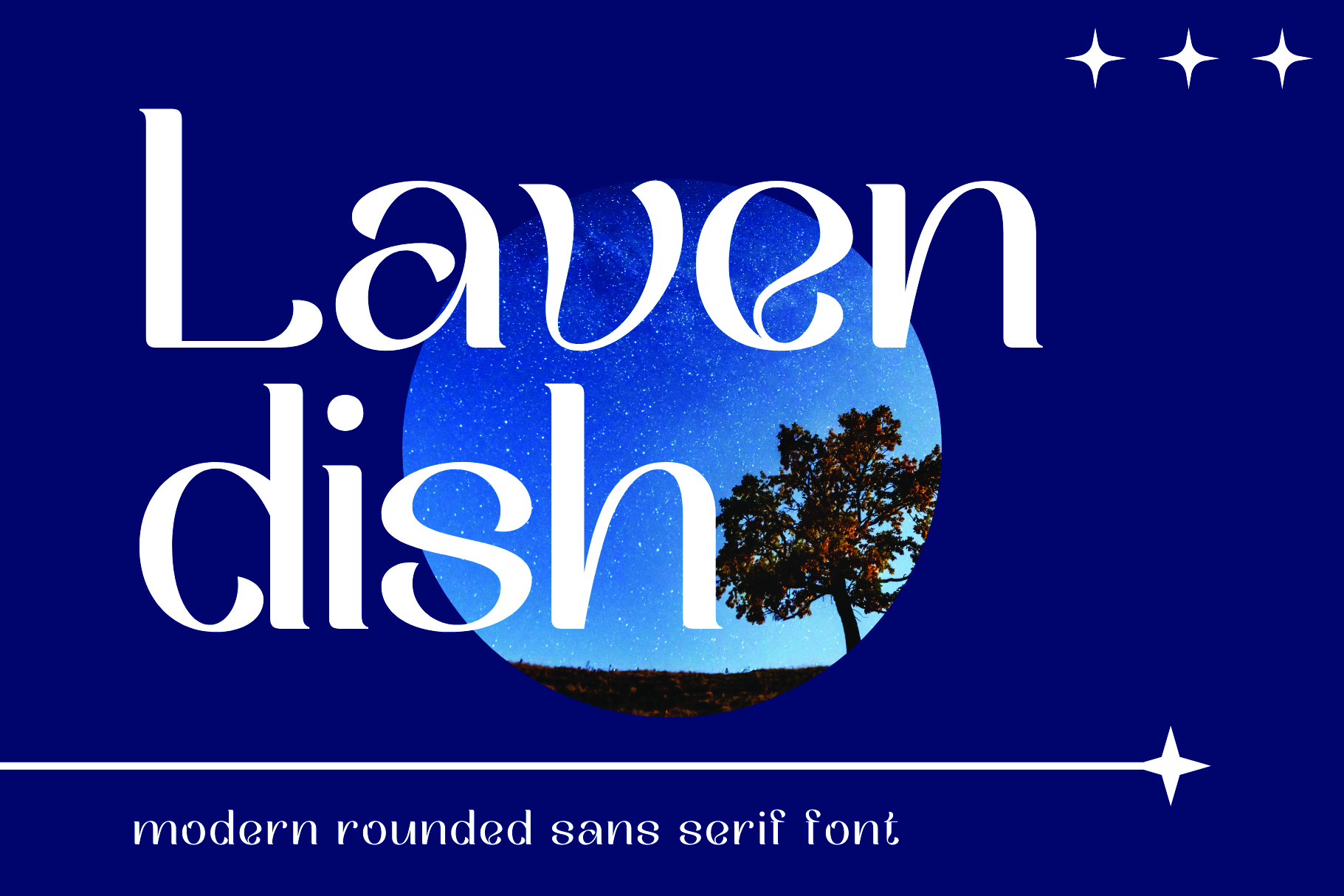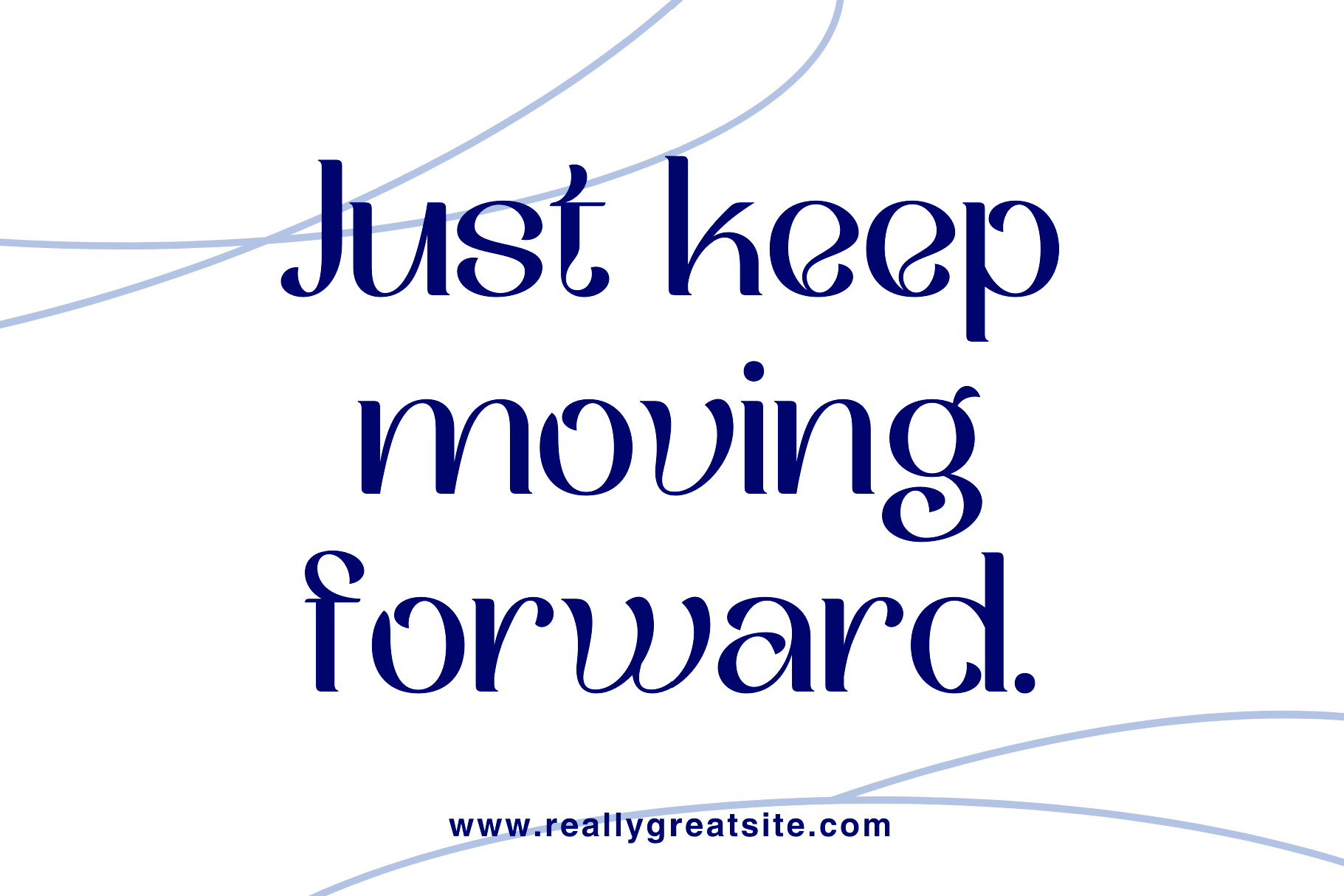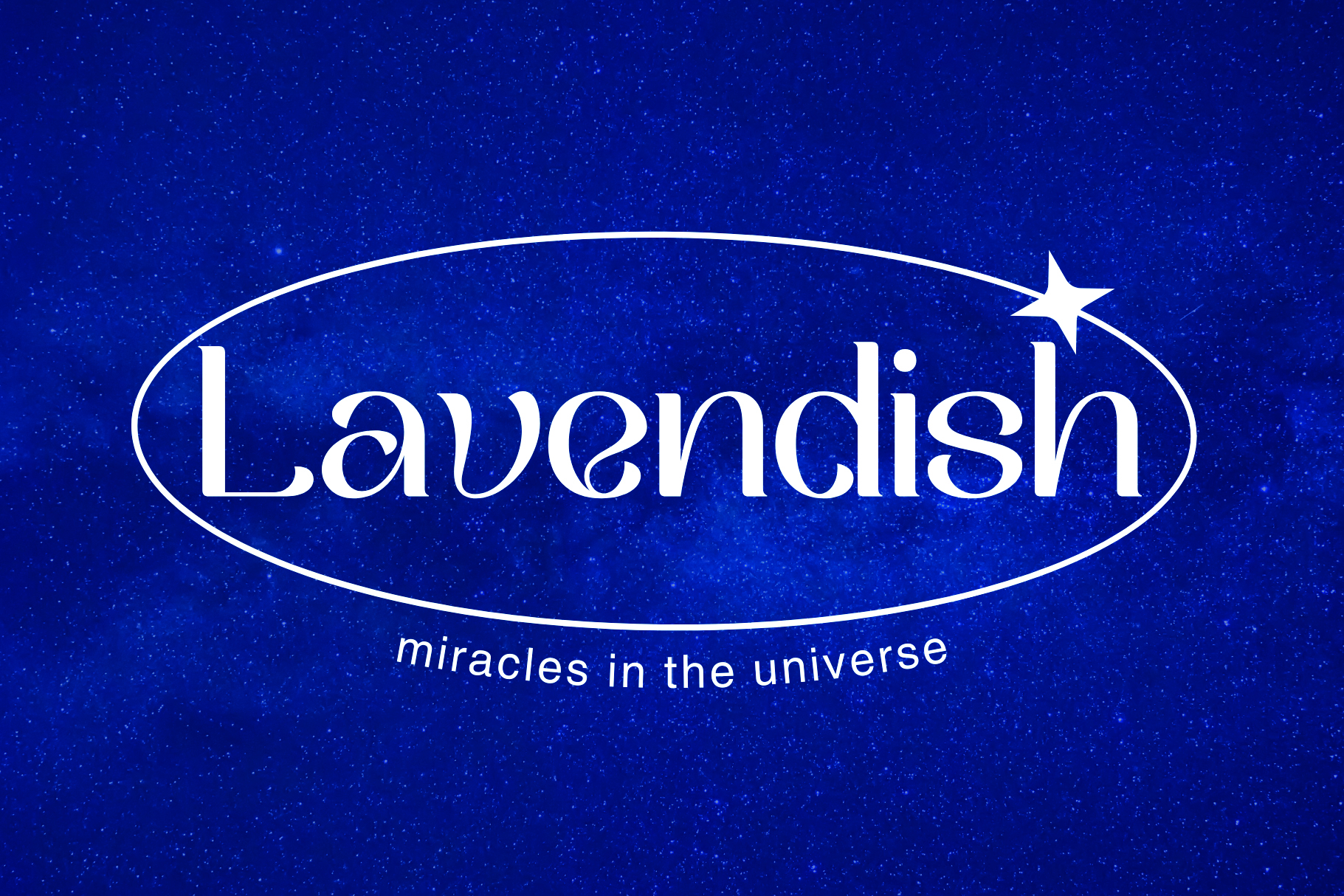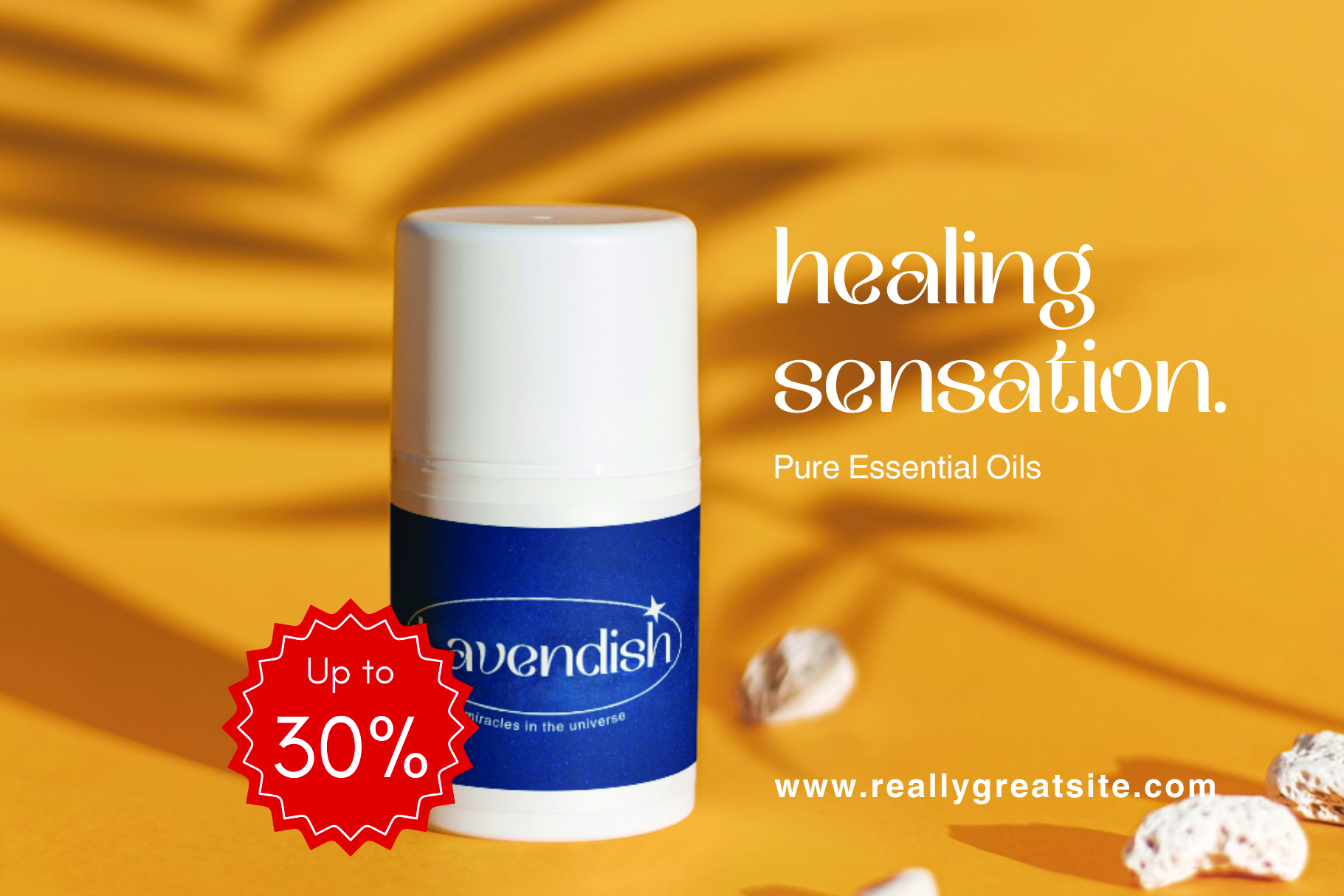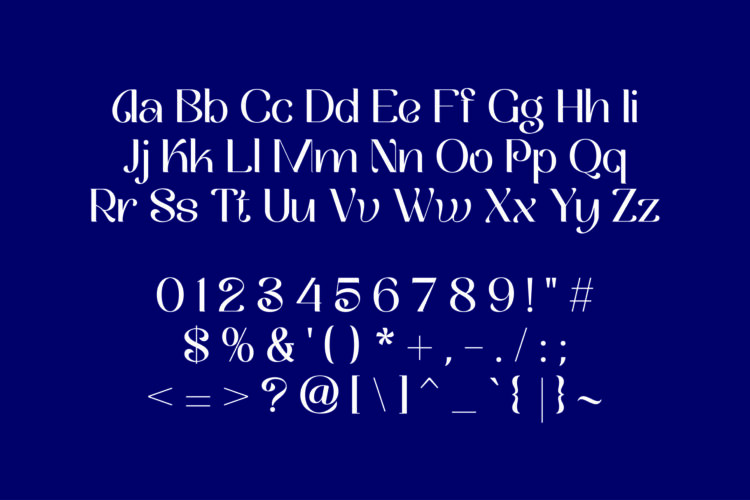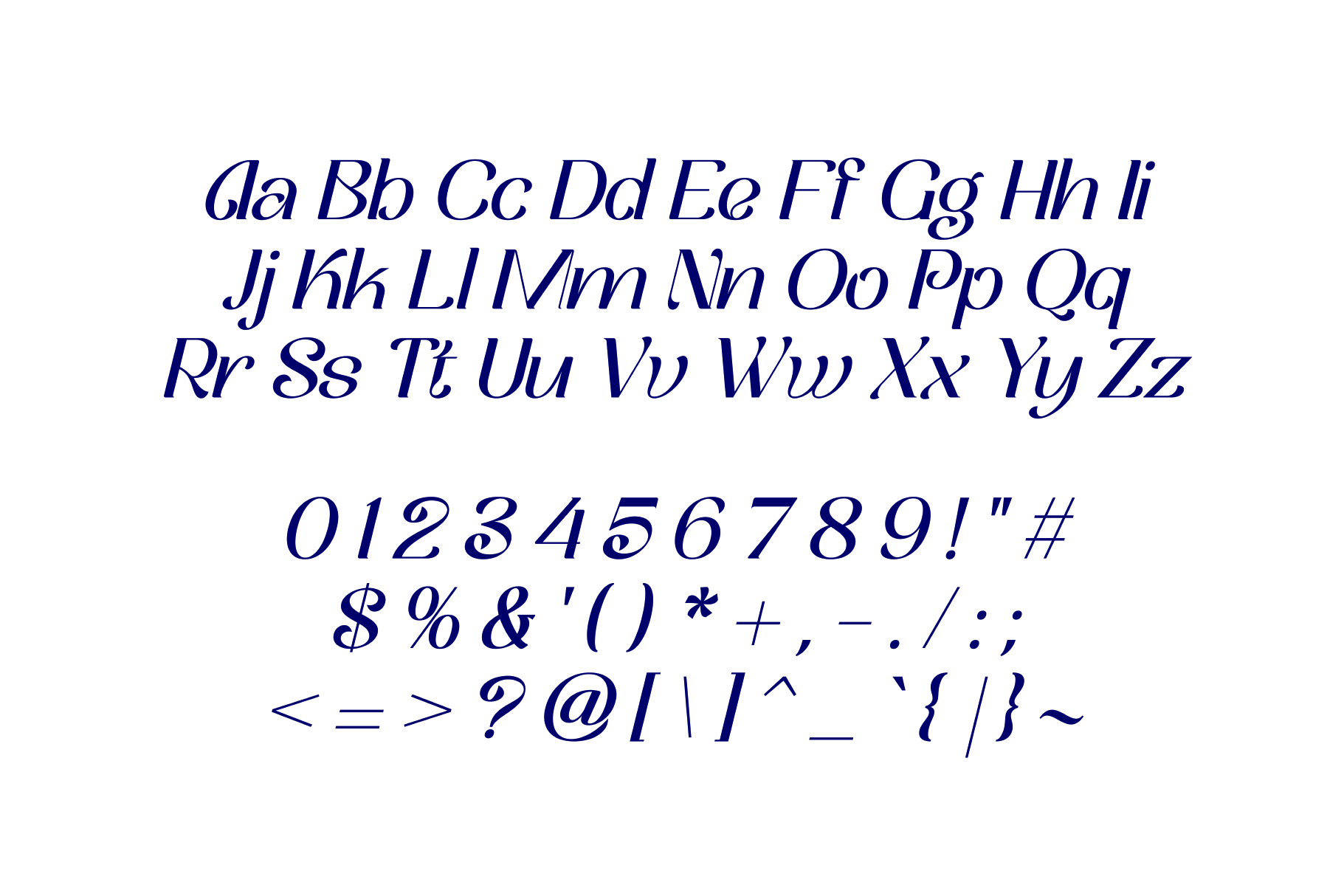
Lavendish is a refined and timeless serif font designed to add a touch of elegance to any project. With its sleek, modern lines and sophisticated curves, Lavendish is perfect for high-end designs such as wedding invitations, fashion magazines, beauty product packaging, merchandise, posters, and more. Its versatile style brings a balance of tradition and modernity, making it a standout choice for both classic and contemporary design projects.
Lavendish includes uppercase and lowercase letters, numbers, basic punctuation, and italicized versions of each character, offering you complete creative freedom. Available in OTF, TTF, and WOFF file formats, this elegant font integrates seamlessly into your design software, giving you all the tools to create polished, professional, and stunning visuals.